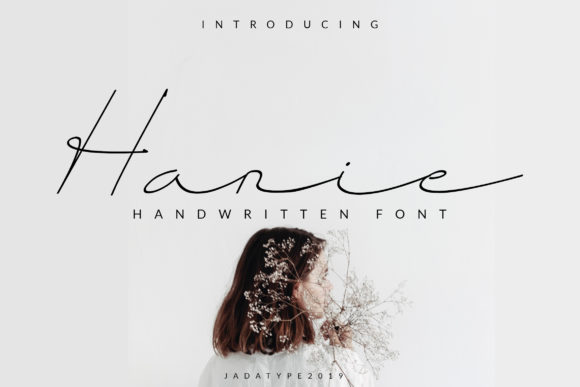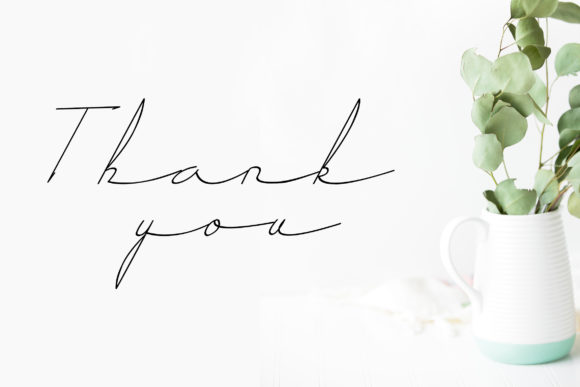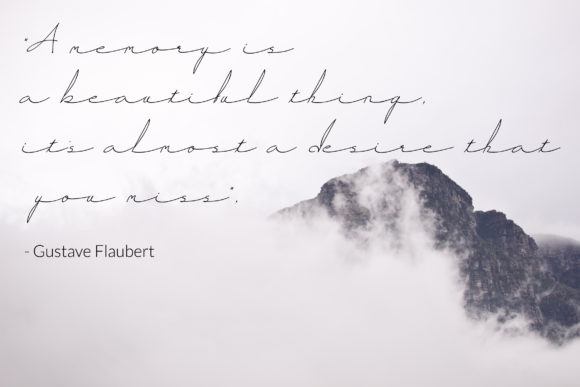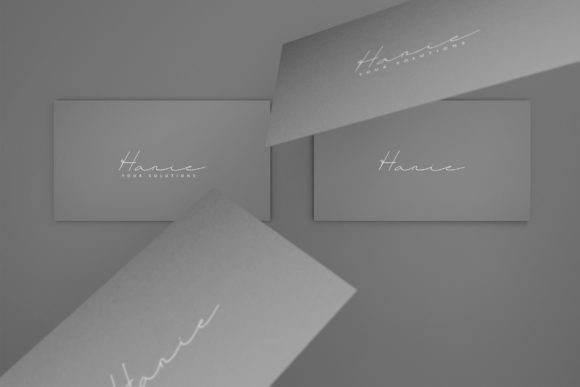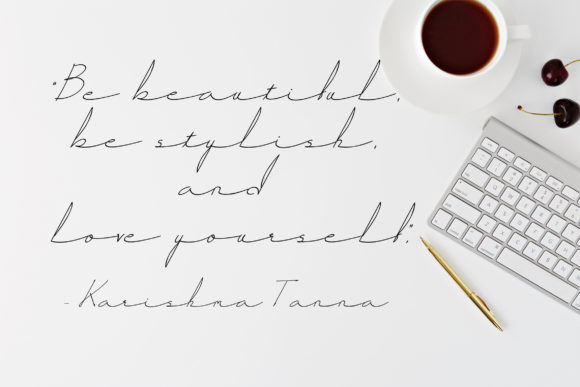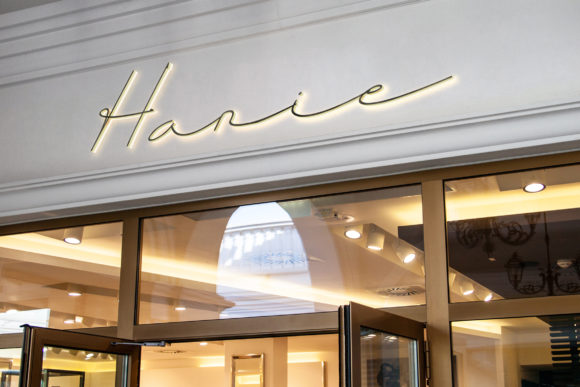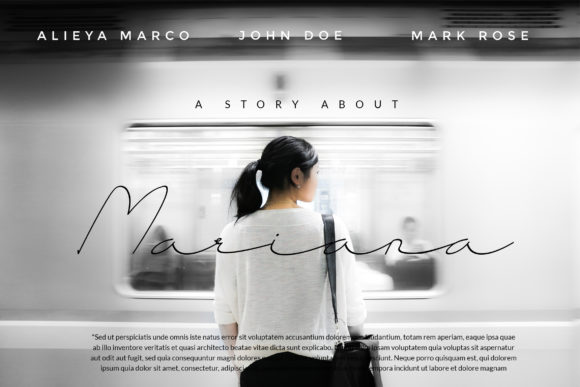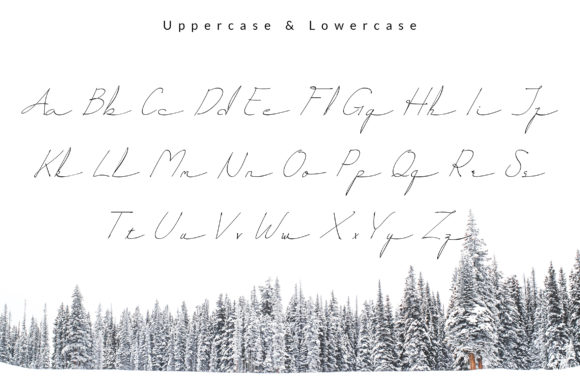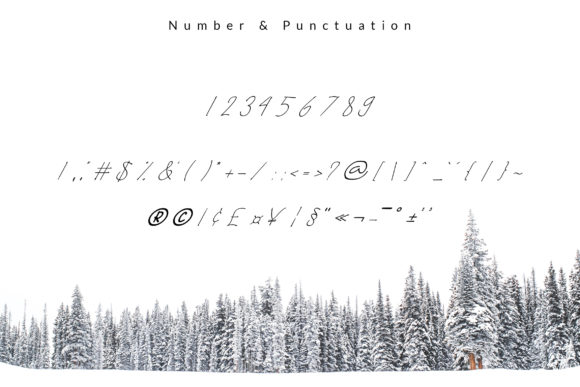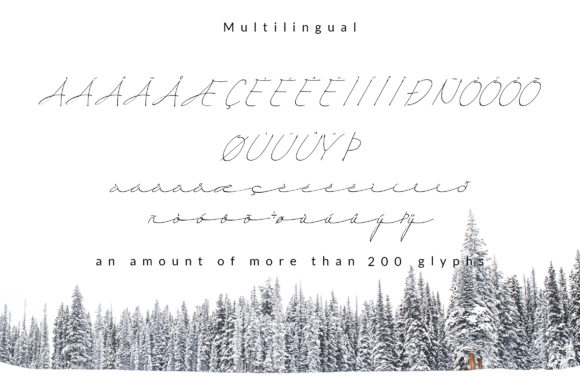
HomeScript FontsHanie Font Script Fonts Hanie Font FacebookXPinterestWhatsApp Hanie Font Poster 2 Hanie Font Poster 3 Hanie Font Poster 4 Hanie Font Poster 5 Hanie Font Poster 6 Hanie Font Poster 7 Hanie Font Poster 8 Hanie Font Poster 9 Hanie Font Poster 10 About Hanie Font Smooth and simple, Hanie is a unique script with a casual feel. DOWNLOAD NOW People also explored Cathaline Font Mille Font Outside Font Matheya Font Open Script Font Skateboard Font Asikira Font Vintage Wedding Font Night Marie Font 281 0 TagsHanie Font Previous articleAustina FontNext articleNortherly Font LEAVE A REPLY Cancel reply Comment: Please enter your comment! Name:* Please enter your name here Email:* You have entered an incorrect email address! Please enter your email address here Website: Save my name, email, and website in this browser for the next time I comment. Personal Use Free Joystix Monospace Personal Use Free Read more about this font The Shocker Personal Use Free Read more about this font Baveuse Personal Use Free Read more about this font Cleopatra Font Personal Use Free Read more about this font BLOG Free Fonts Risk: Why Free Fonts Can Be Dangerous for Designers Free Fonts Risk: Why Free Fonts Can Be Dangerous for Designers Using free fonts is a common practice in web and graphic design. However, the... Top 10 Handwritten Fonts That Elevate Your Designs Transform Your Website: Elevate Your Typography with 7 Best Web Font Generators Using Fonts in Digital Marketing: Tips to Strengthen Your Brand Identity